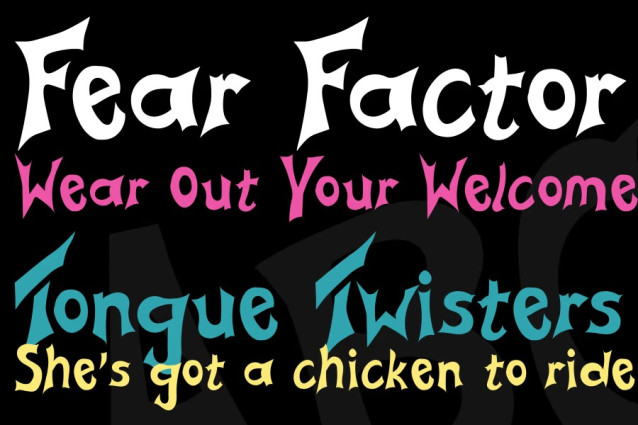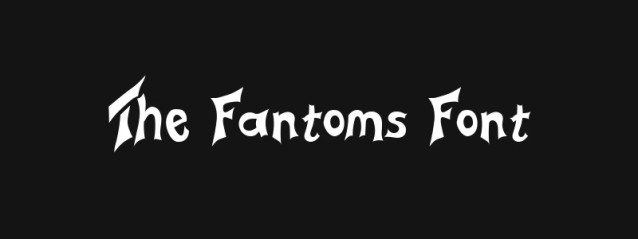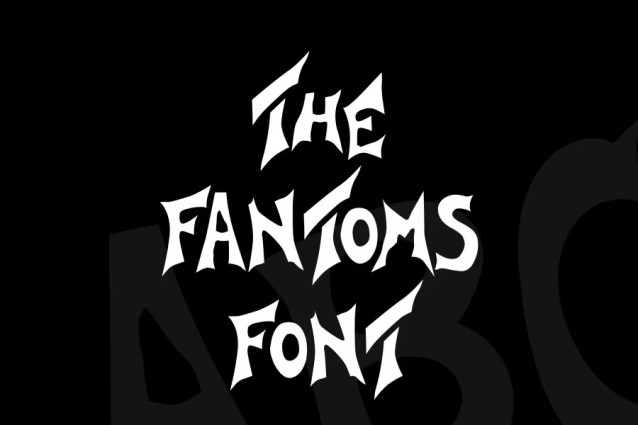
The Fantoms Font captures the spirit of 1950s and 60s rock-and-roll design with a lively, slightly spooky twist. Its bold, uneven letterforms recall the hand-painted posters and record covers of the era, giving it a retro energy that stands out in logos, stage artwork, and band branding. The sharp edges and playful curves add character without losing legibility, making it perfect for vintage music themes, Halloween designs, or anything that needs a touch of classic rock attitude with ghostly charm.